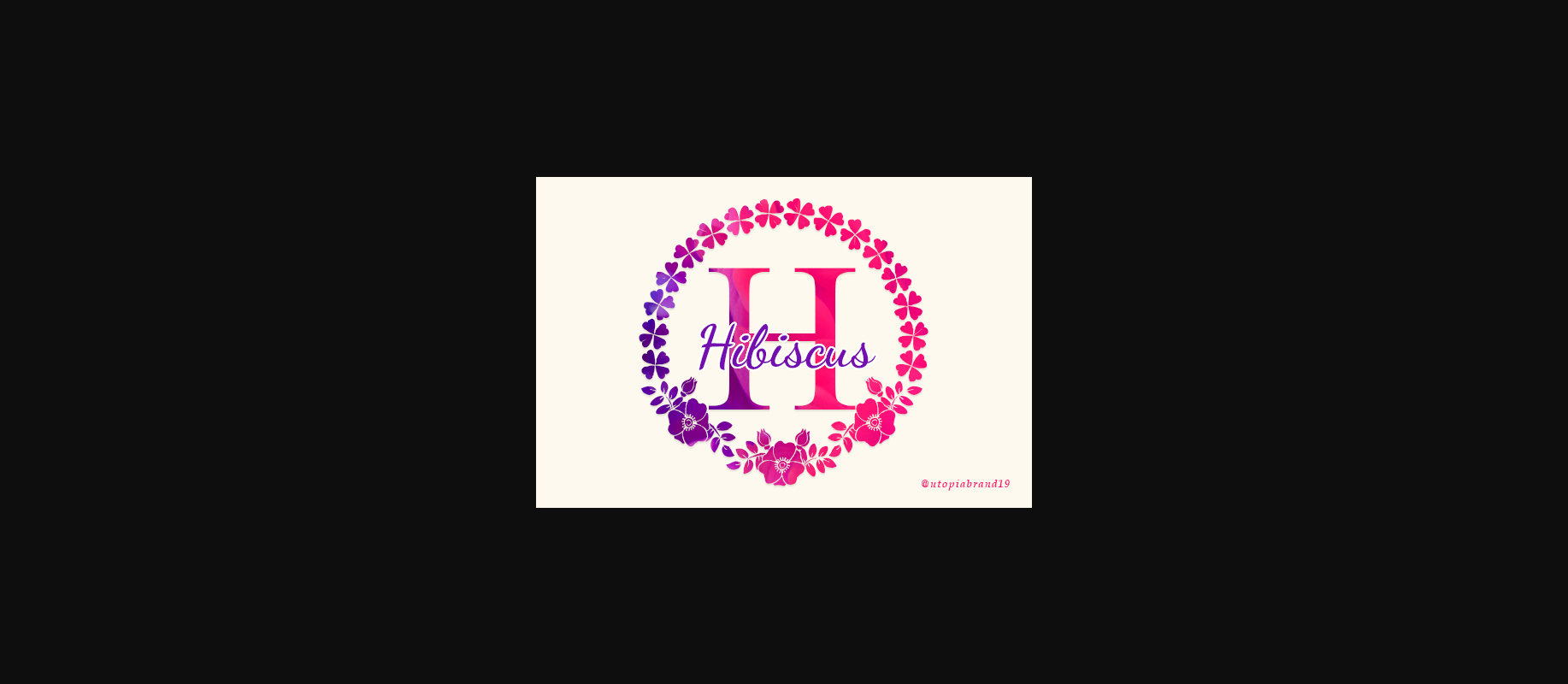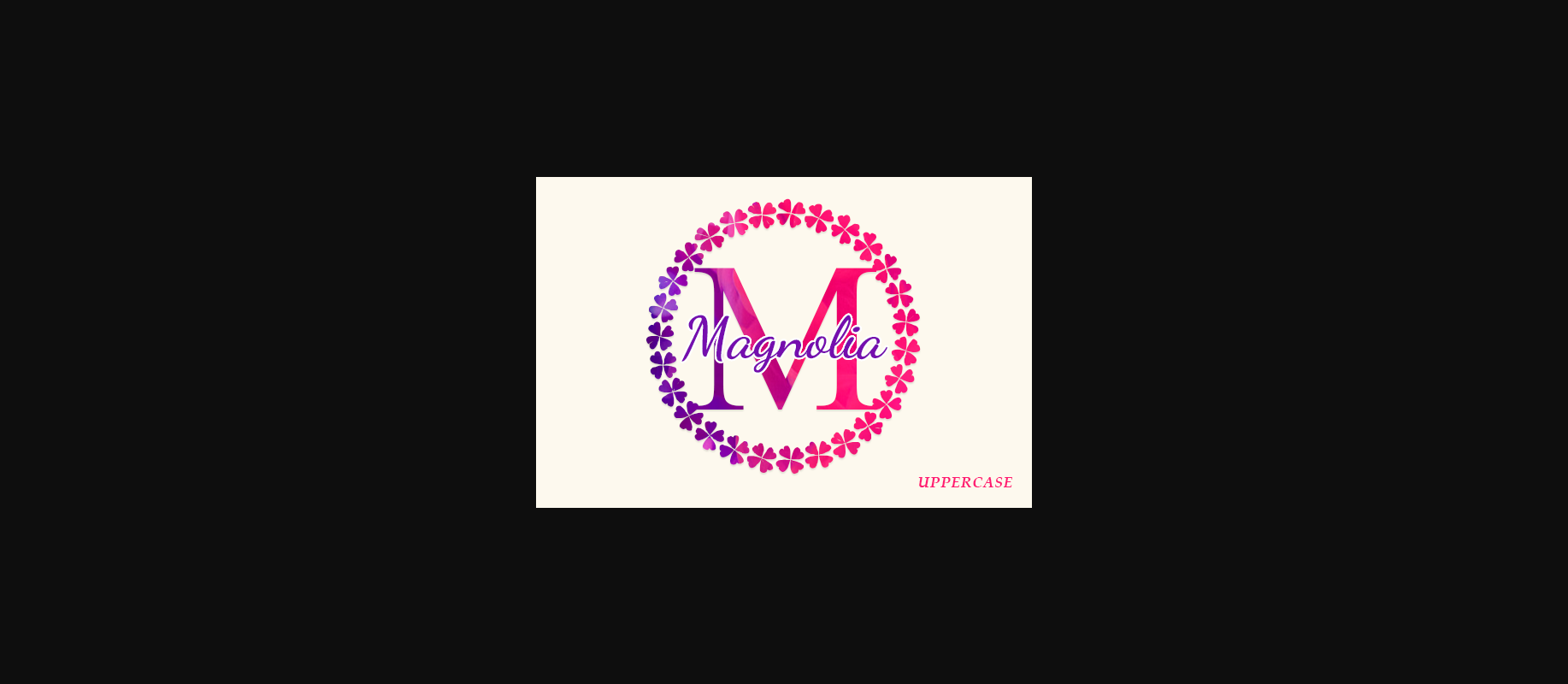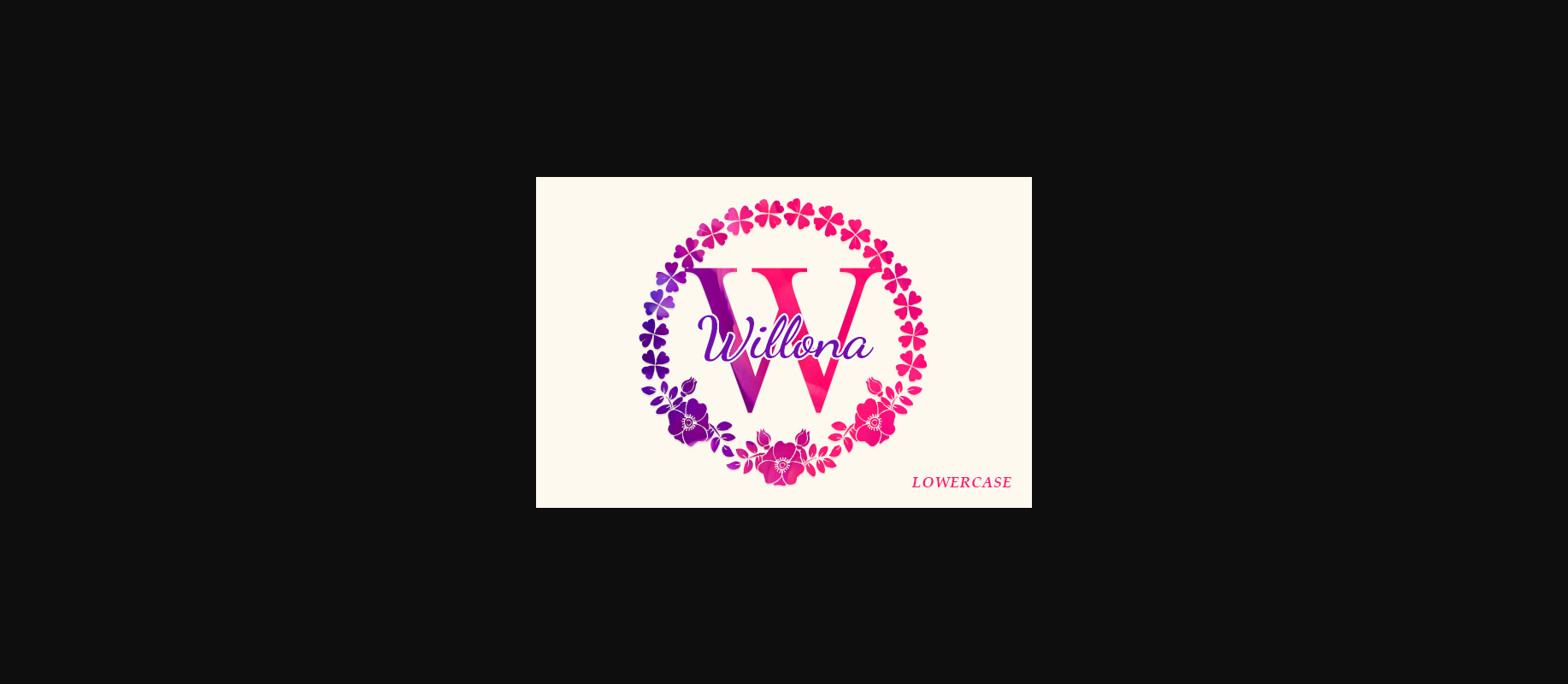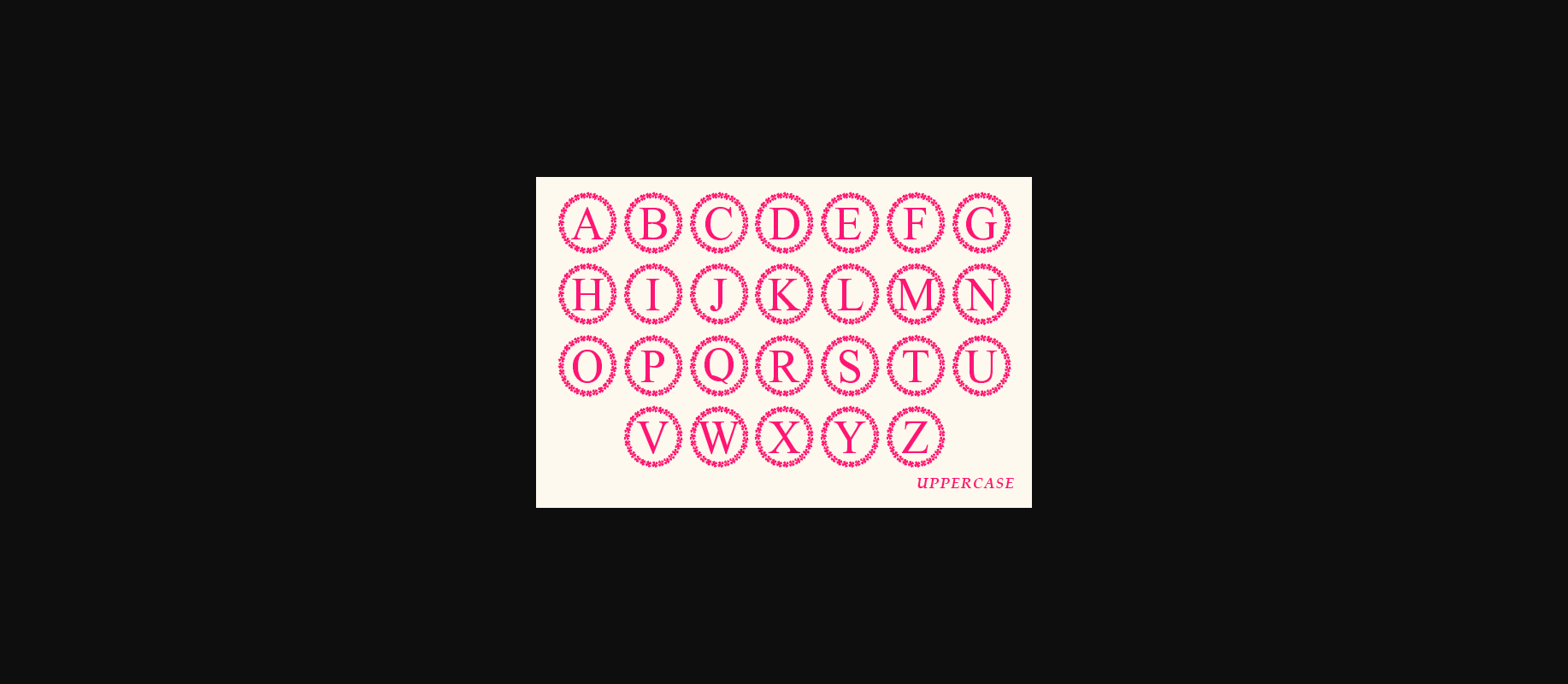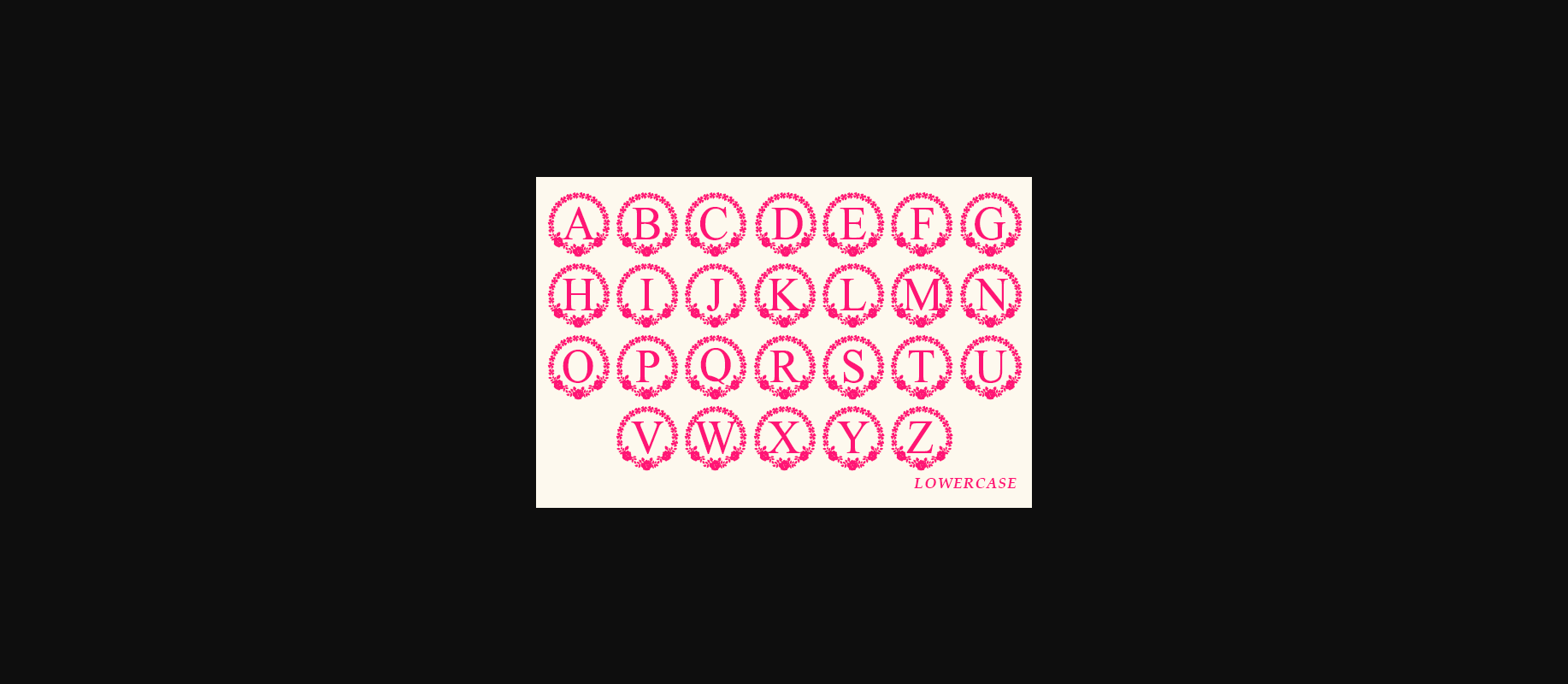
Hibiscus Monogram Font
About Hibiscus Monogram Font
HIbiscus Monogram is a charming decorative font. Fall in love with its authentic feel and use it to create gorgeous wedding invitations, beautiful stationary art, eye-catching social media posts, and cute greeting cards.